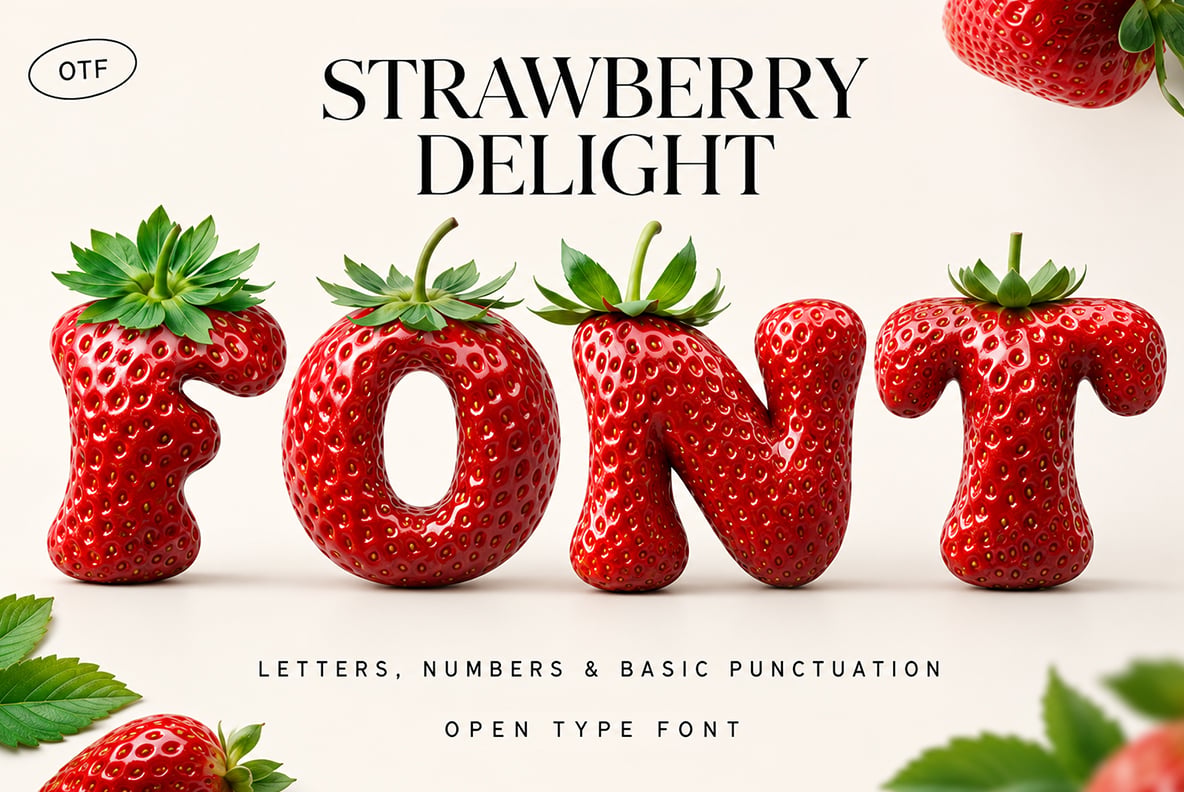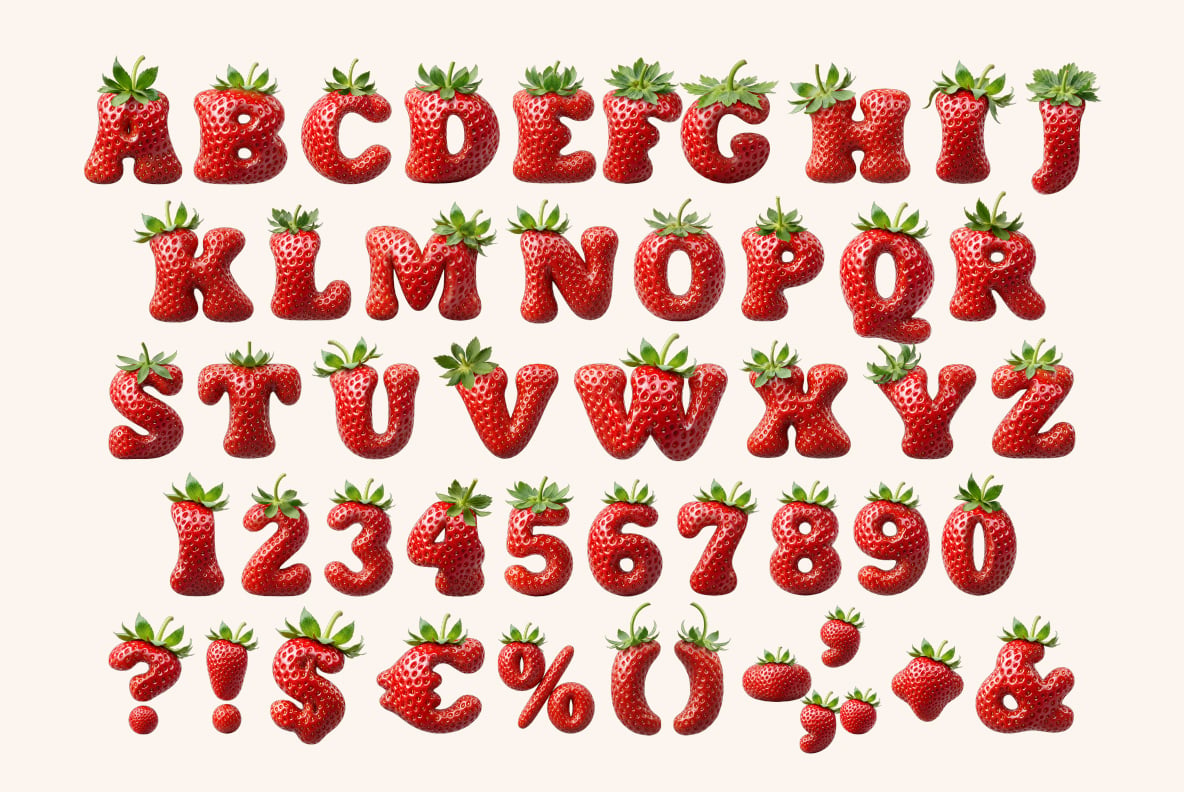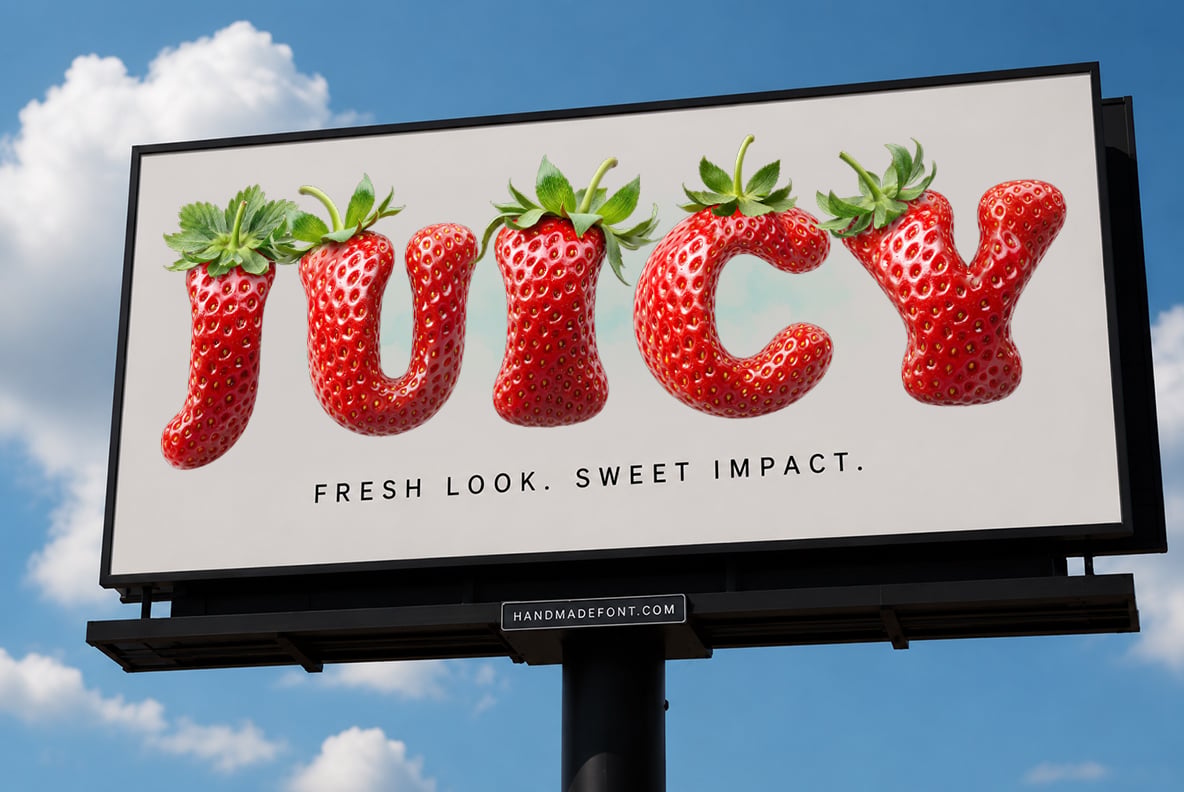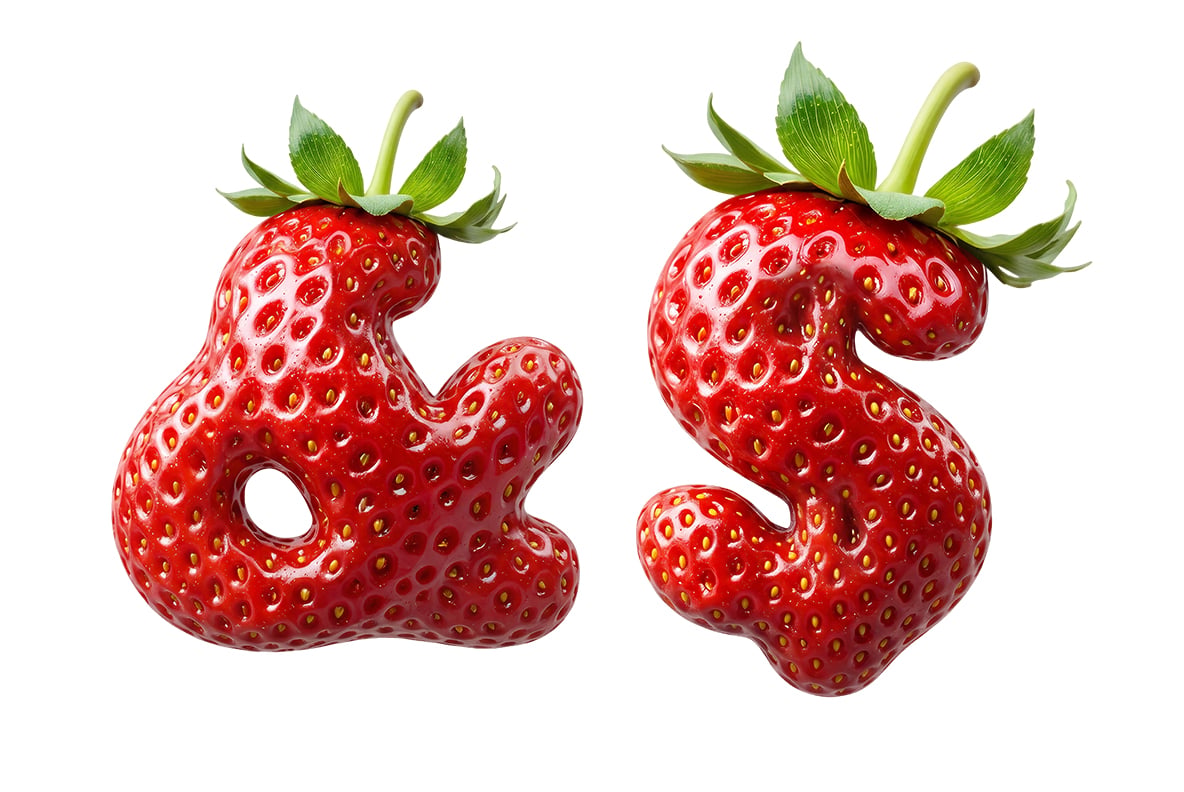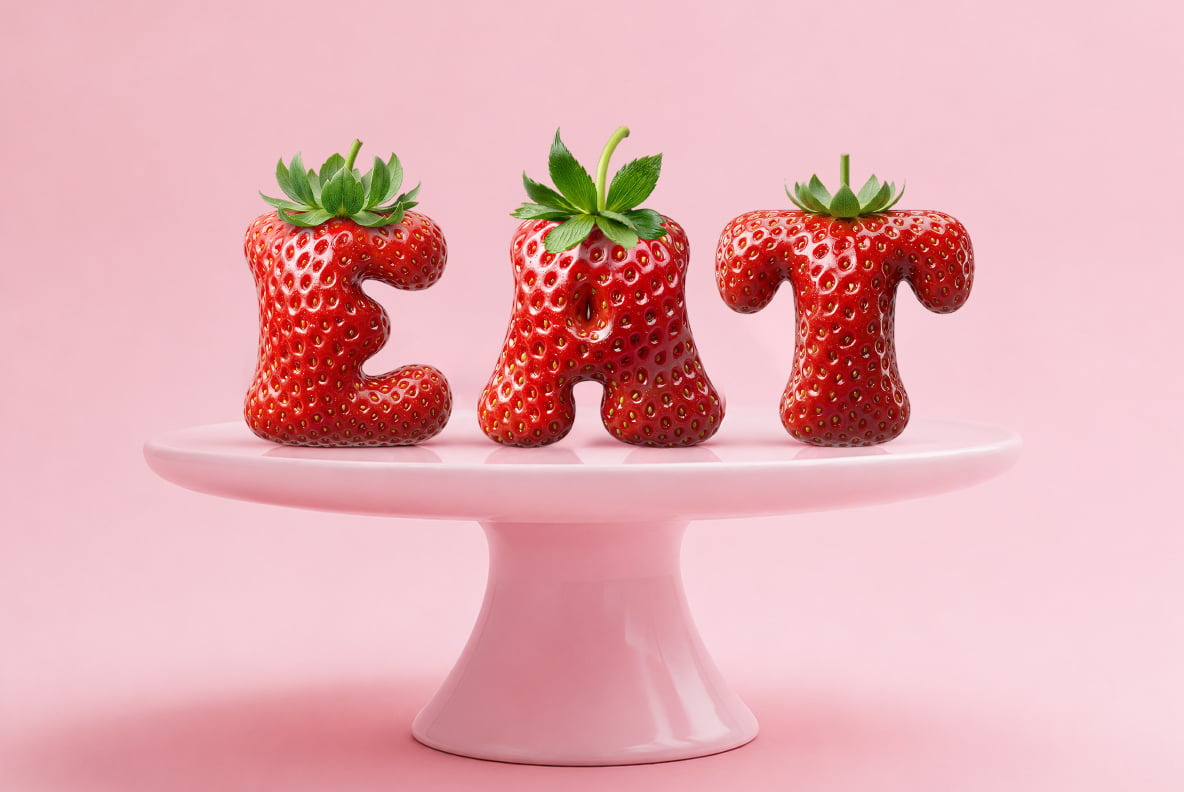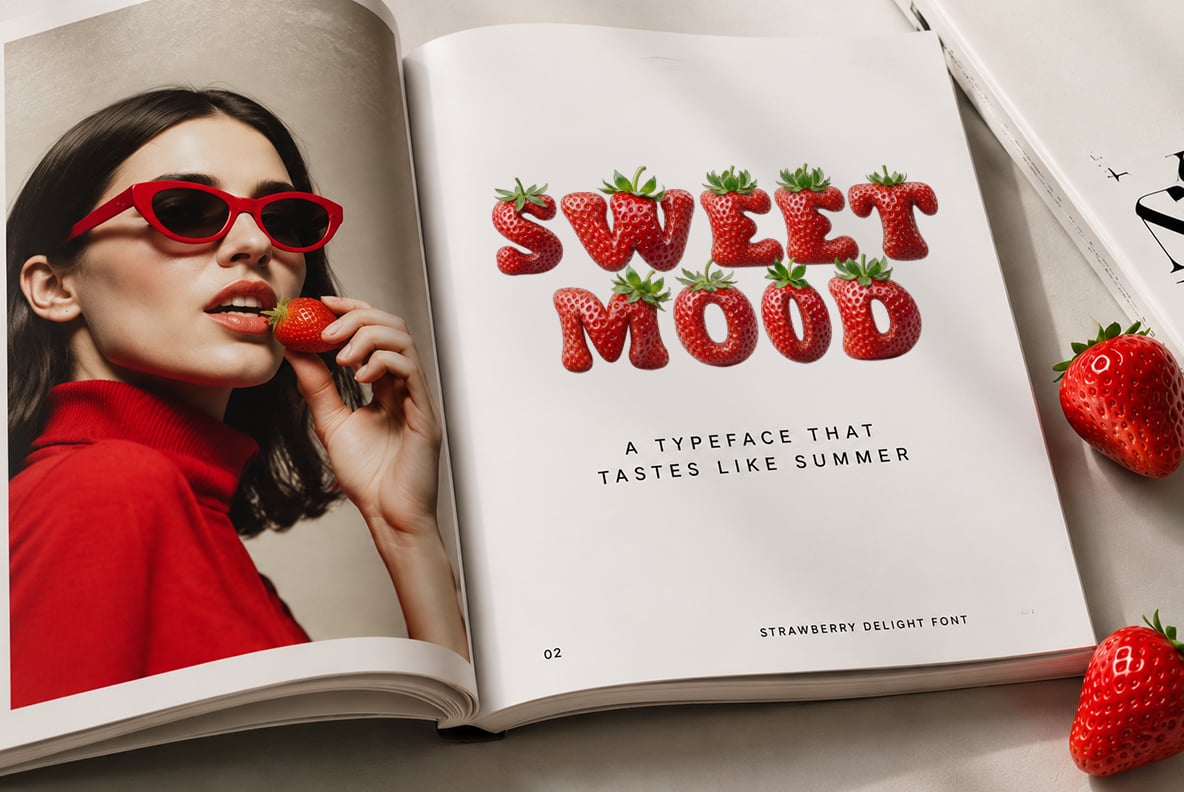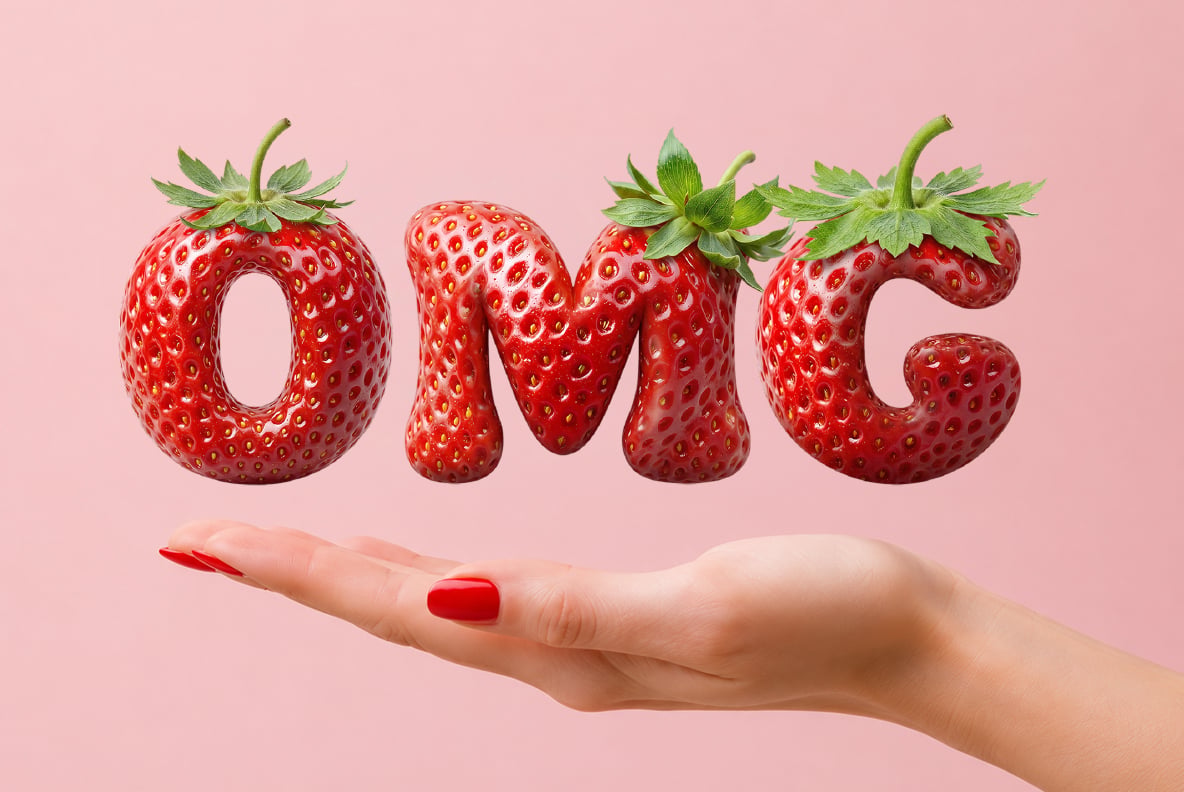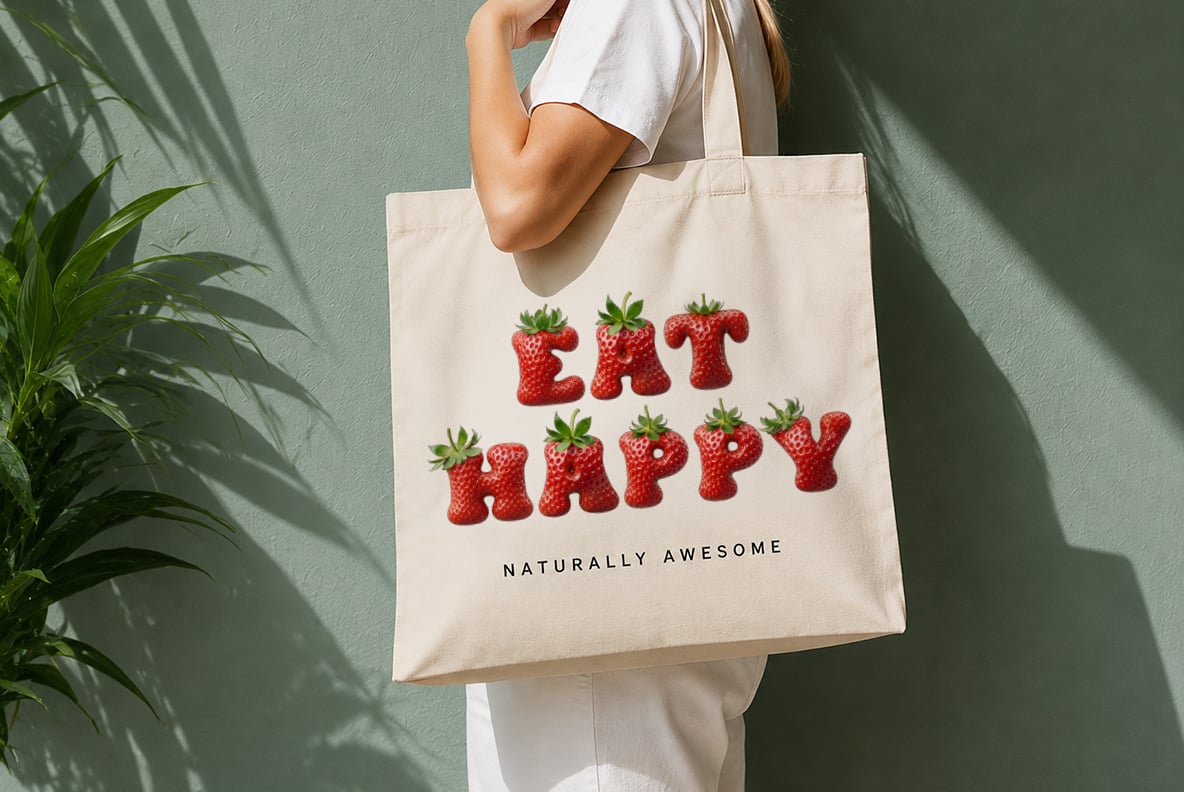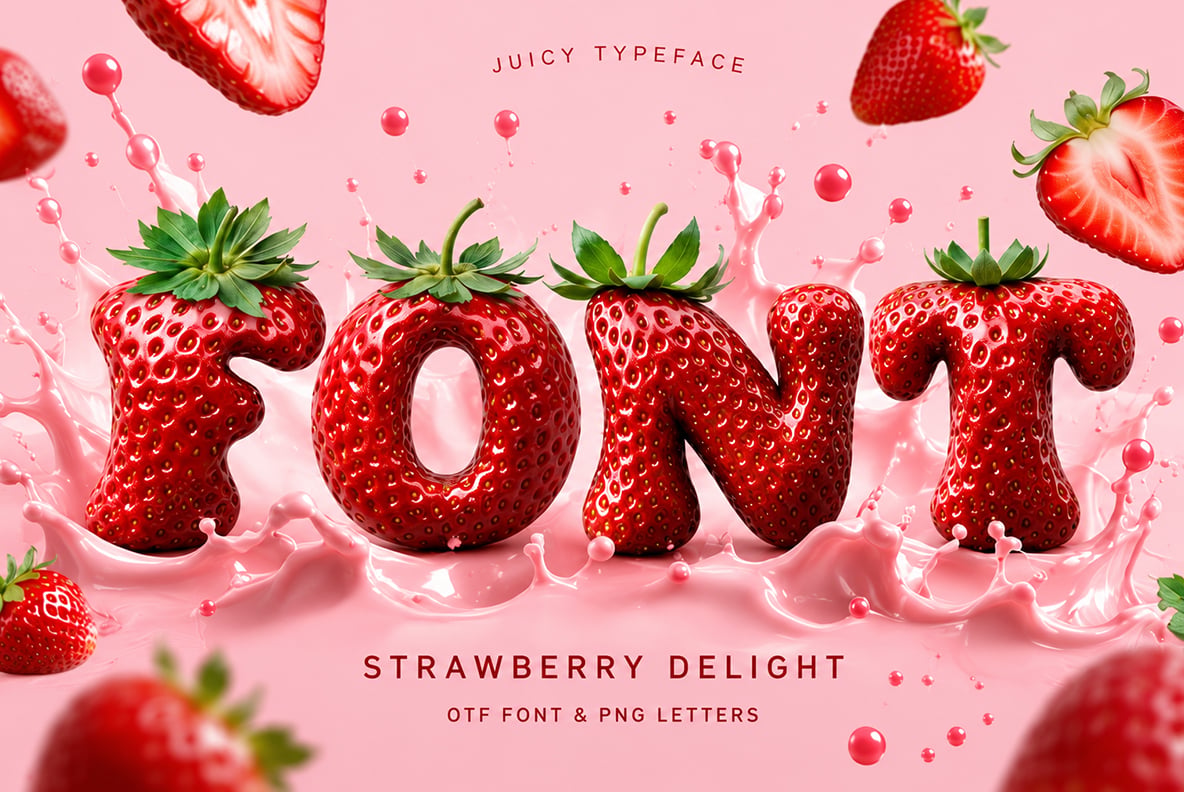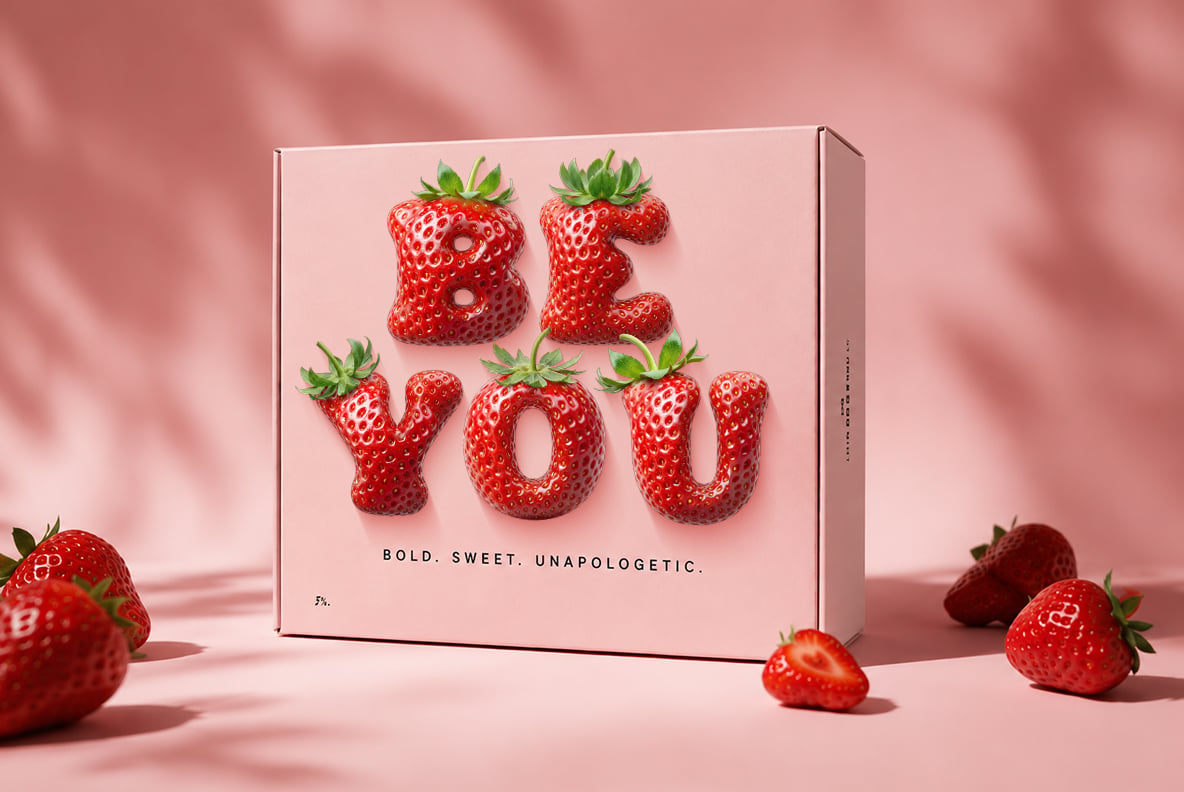
Strawberry Delight Font
Strawberry Delight Font is a playful, handcrafted typeface inspired by the fresh beauty of ripe strawberries. Every letter is carefully designed with realistic fruit textures, glossy details, and natural green leaves, creating a fun yet premium look. The package includes an OpenType (OTF) font for easy typing and individual high-resolution PNG letters with transparent backgrounds for custom designs. Perfect for branding, packaging, posters, social media, invitations, food projects, seasonal promotions, and creative artwork, Strawberry Delight Font adds a sweet, vibrant, and eye-catching personality to every composition while giving designers maximum flexibility for both digital and print projects alike.